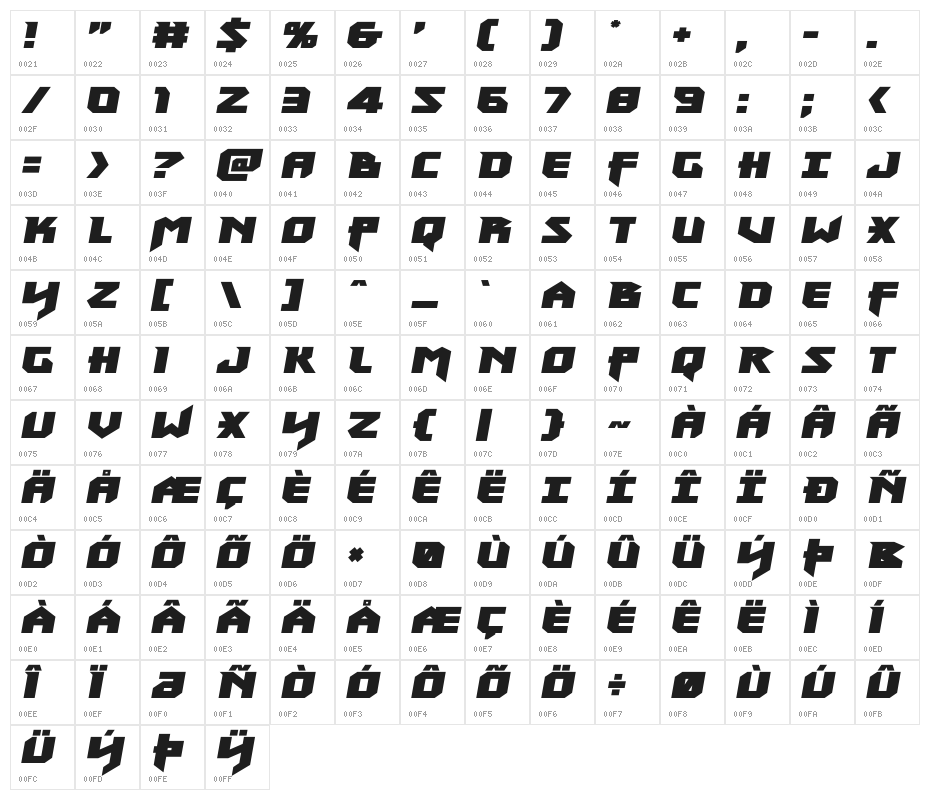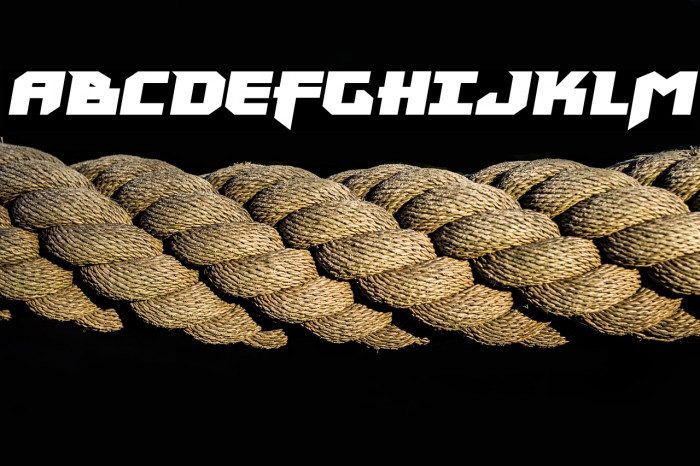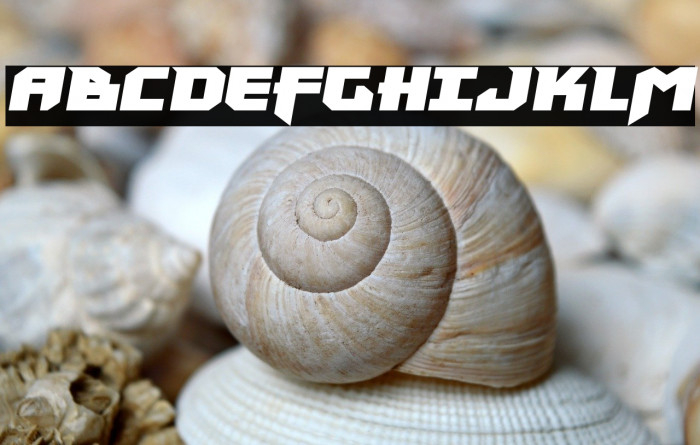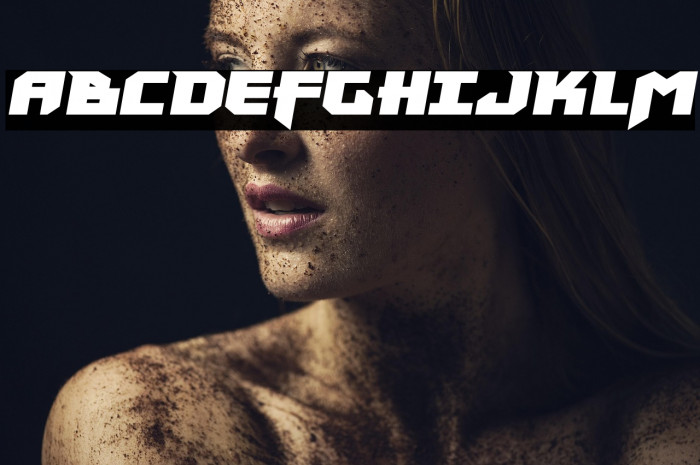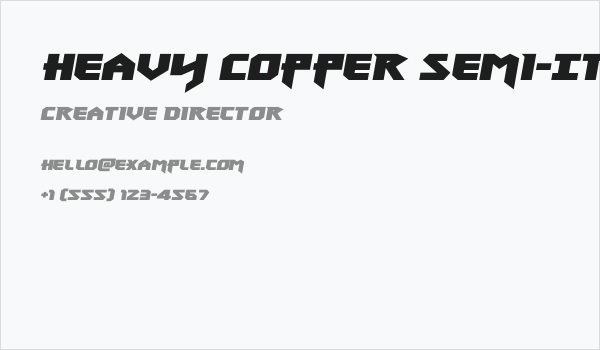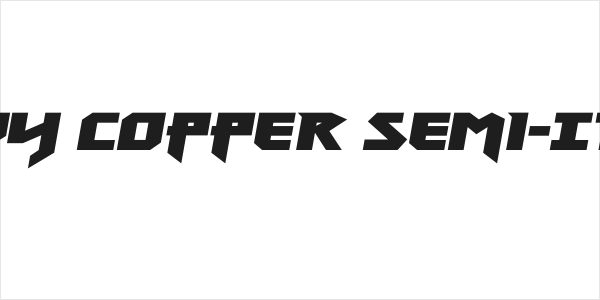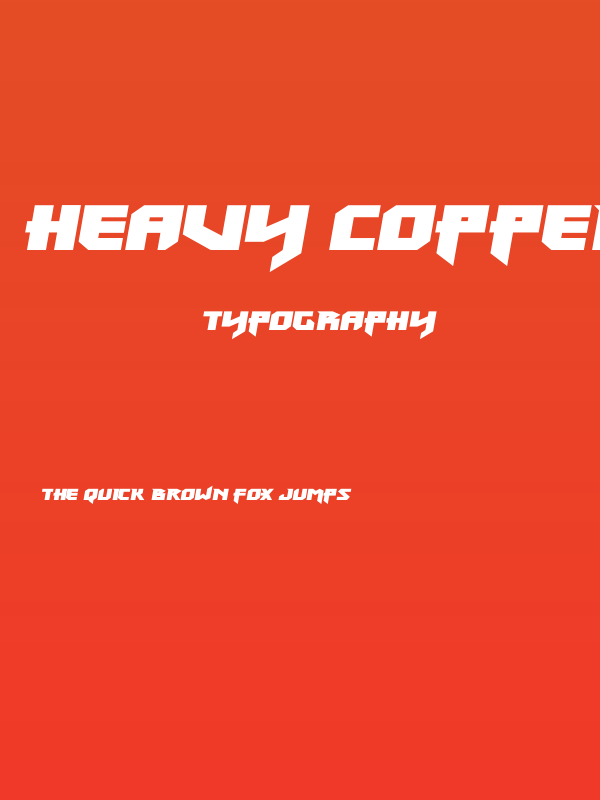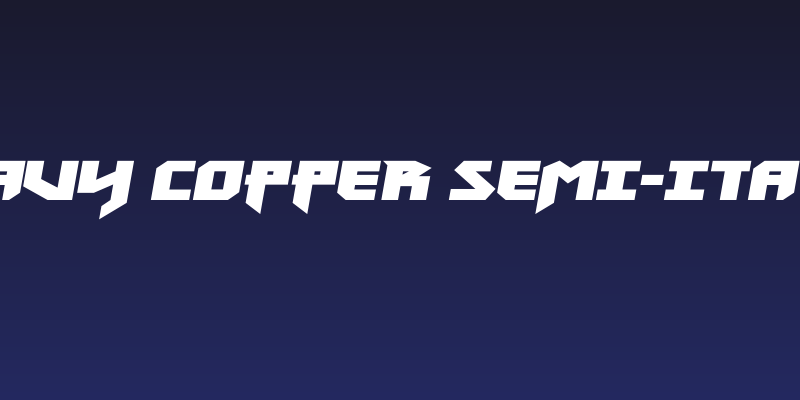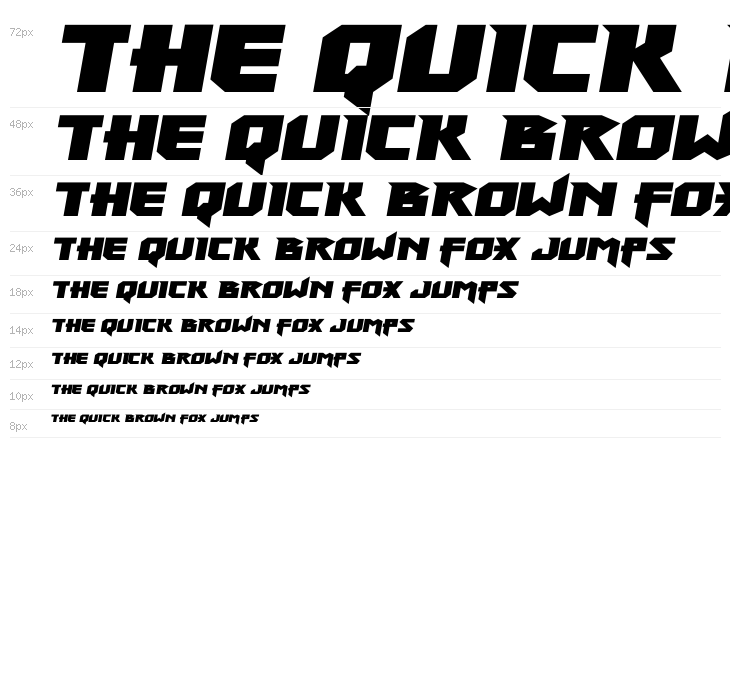
Heavy Copper Semi-Italic Font
Heavy Copper Semi-Italic Description
This font features a bold and angular design, characterized by sharp edges and a dynamic, forward-leaning stance. The letters are heavily stylized with a semi-italic slant, giving them a sense of motion and aggression. The uppercase and lowercase letters maintain a consistent style, with the uppercase being particularly striking due to their pronounced geometric forms. The numerals and special characters follow the same design principles, ensuring uniformity across the typeface. This font's unique appearance makes it stand out, ideal for projects that require a strong visual impact.
| Proposed Projects | Ideal for sports branding, video game titles, posters, and any design needing a bold, impactful typeface. |